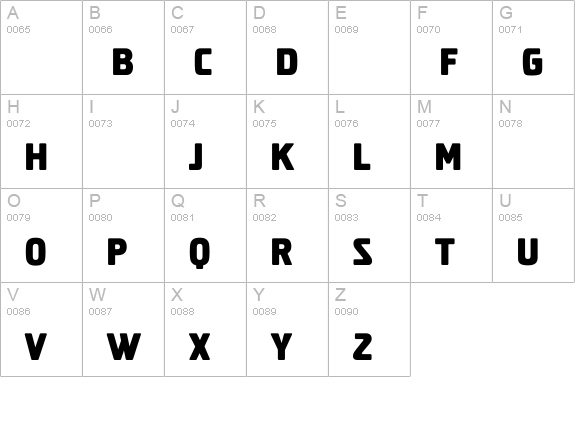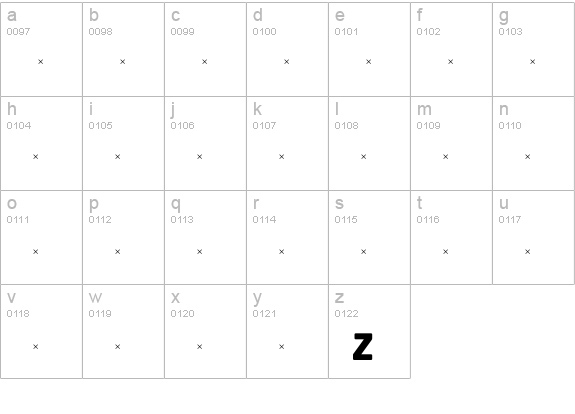
ElstonBold Font Details
ElstonBold font is a modern and stylish typeface that exudes confidence and sophistication. With its bold and clear letterforms, ElstonBold is perfect for making a statement in your designs. This versatile font can be used for a variety of projects, from branding to editorial design. The best part about ElstonBold font is that it is available for free download at FontsMarket.com. This means you can easily access this elegant typeface without any cost, making it a valuable addition to your font collection. Whether you're working on a professional project or a personal creative endeavor, ElstonBold font is sure to elevate your design with its sleek and contemporary vibe.